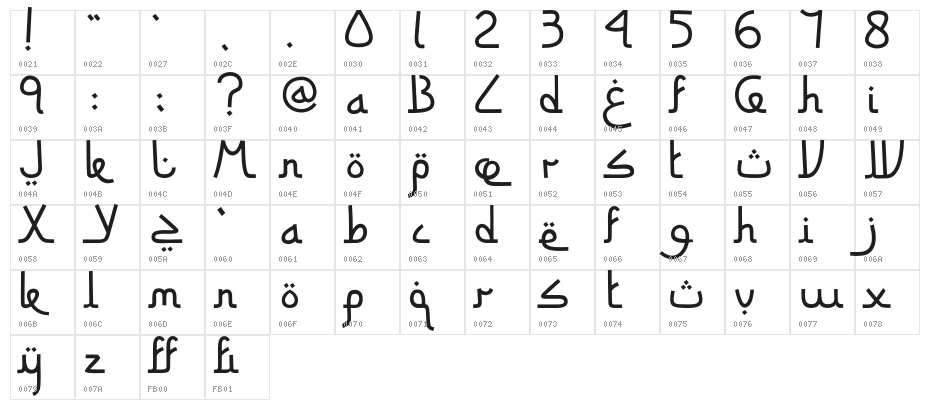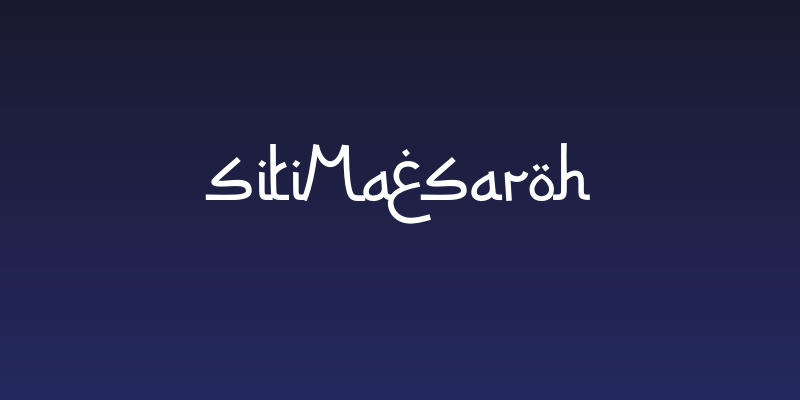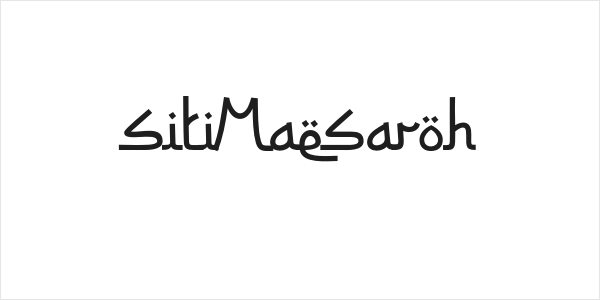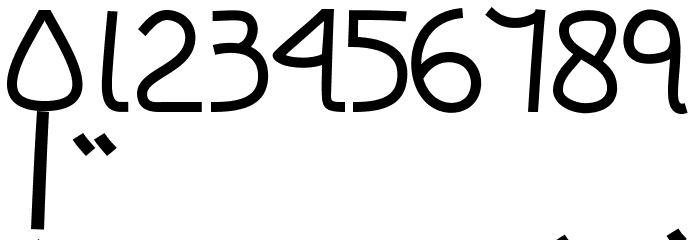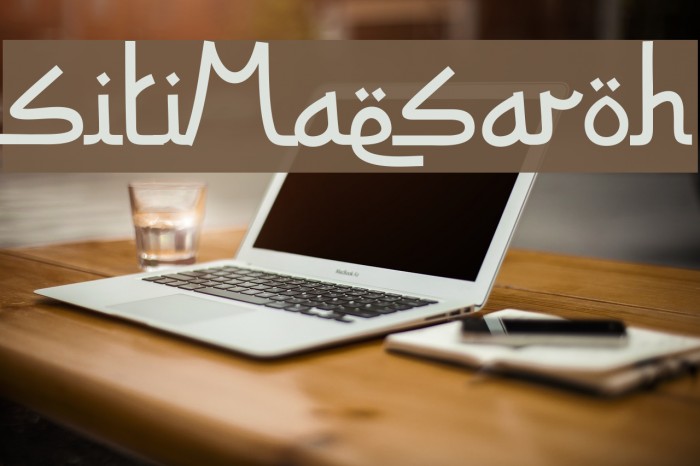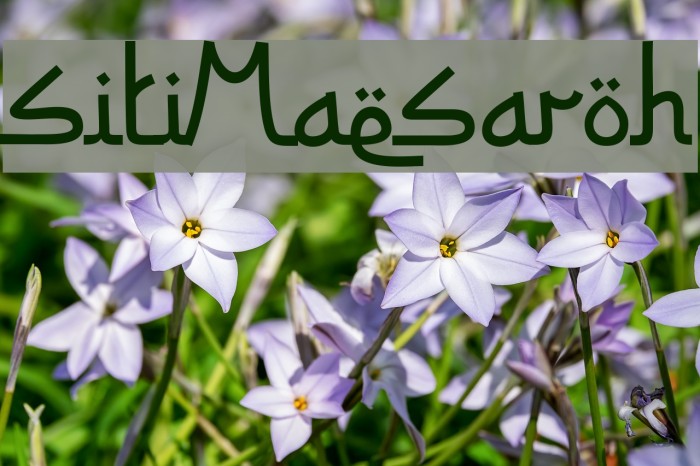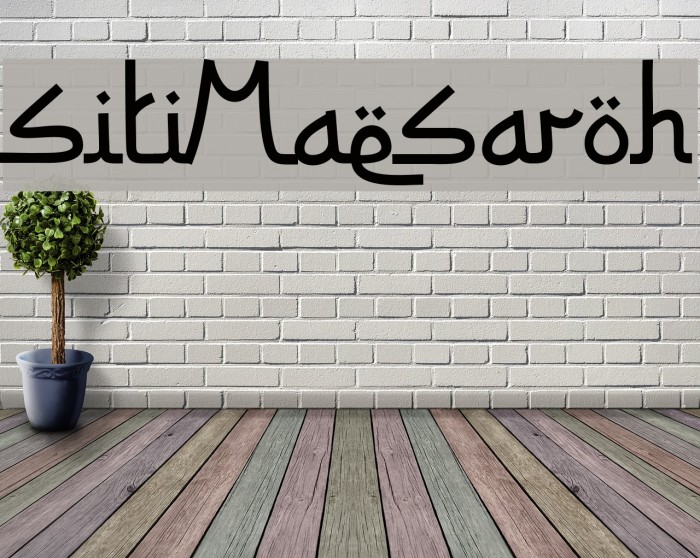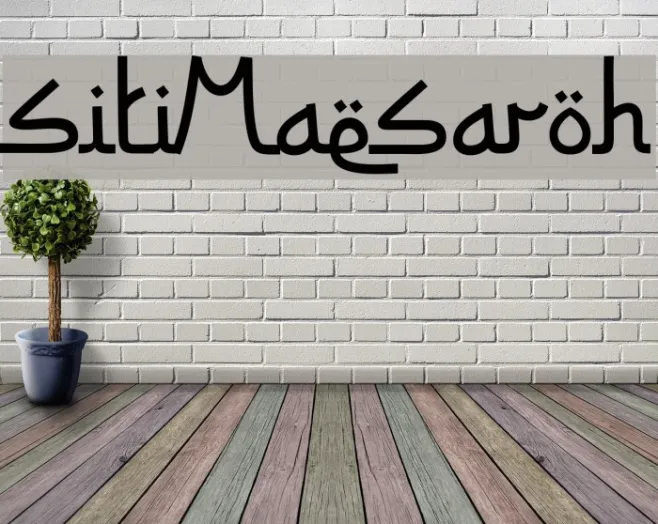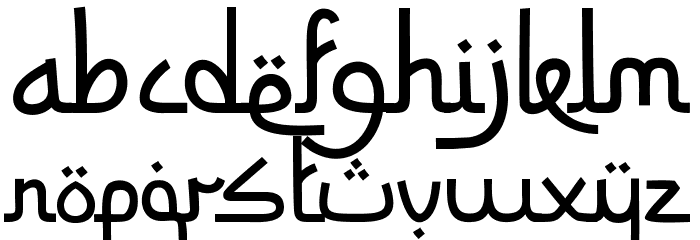
SitiMaesaroh Font
SitiMaesaroh Description
This font features a unique blend of geometric and calligraphic elements, creating a distinct and artistic appearance. The characters exhibit a playful yet structured form, with smooth curves and sharp angles that give it a dynamic feel. The uppercase letters are bold and prominent, while the lowercase letters maintain a consistent flow, enhancing readability. The numerals are stylized to match the overall design, adding a cohesive look. Special characters are creatively integrated, maintaining the font's artistic flair. This font's design is both modern and timeless, making it versatile for various applications.
| Use Case | Logos, Headlines, Artistic designs |
| Proposed Projects | Ideal for branding, creative projects, posters, and artistic designs. |